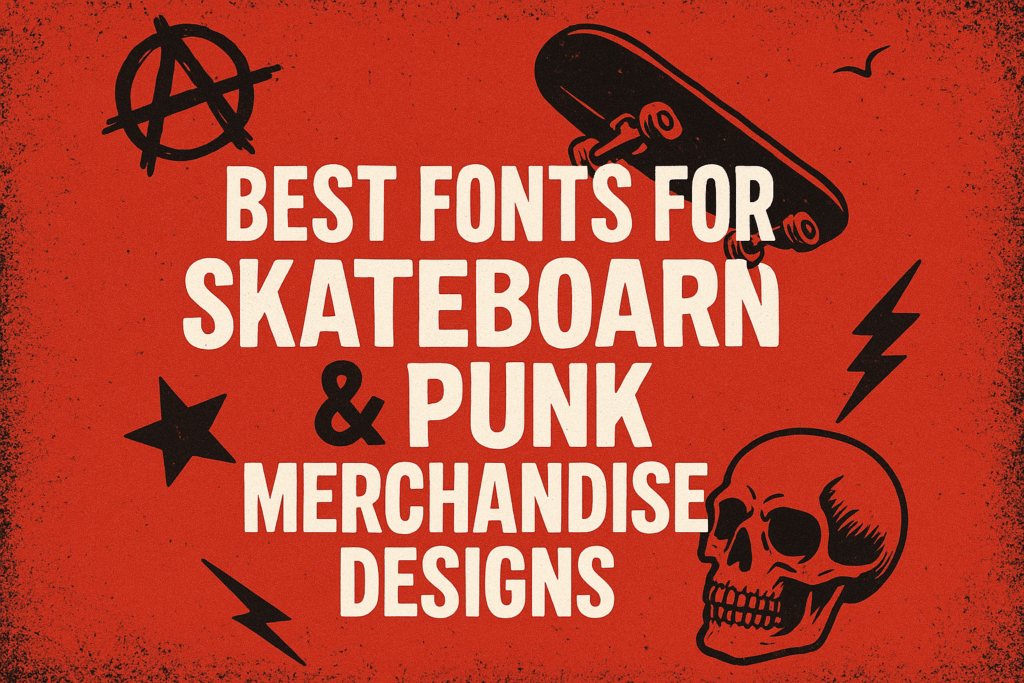
Best Fonts for Skateboard & Punk Merchandise Designs
Punk and skate culture are built on rebellion, chaos, and individuality β€” and typography plays a massive role in expressing that.
Whether you’re designing t-shirt prints, deck graphics, patches, or stickers, choosing the right font can make your brand look raw, loud, and unforgettable.
Here are the best fonts from Ronny Studio for punk-driven and skateboard-inspired merchandise that scream energy and freedom.
1. Thrashlane
A distorted and destructive display font inspired by punk flyers, DIY posters, and underground band logos.
Perfect for merch prints, stickers, and hardcore street branding.
2. Overals
Heavyweight, loud, and confident β€” Overals delivers an industrial punk vibe ideal for deck designs, apparel labels, and gritty packaging.
3. Block Buster
Chunky, explosive, and unapologetic β€” Block Buster is made for skateboard brands, gig posters, and rebellious logo design.
Its solid build gives a punchy, energetic street personality.
4. Echoed Vandalism
Hand-drawn, chaotic, and filled with spray-paint texture β€” this font feels alive.
Perfect for urban artwork, punk apparel prints, and graffiti-inspired graphics.
5. Neckless Starways
Combines grunge and geometric form for a modern punk aesthetic.
Ideal for skate shop branding, album covers, or zine-style graphics that balance chaos with structure.
6. More Than Life
Edgy and emotional β€” this blackletter-punk hybrid font brings depth and rebellion.
Use it for lyric tees, tattoo-inspired designs, or gothic skate visuals.
7. Step Better
Raw, energetic, and hand-crafted, Step Better looks like it came straight from a DIY skate zine.
Perfect for brand tags, punk flyers, and bold typographic merch.
Conclusion
Punk and skateboard design are about freedom and visual noise β€” fonts that look real, imperfect, and emotional.
With Ronny Studio’s typefaces, your merch will capture the raw energy of the streets and stand out from the crowd.